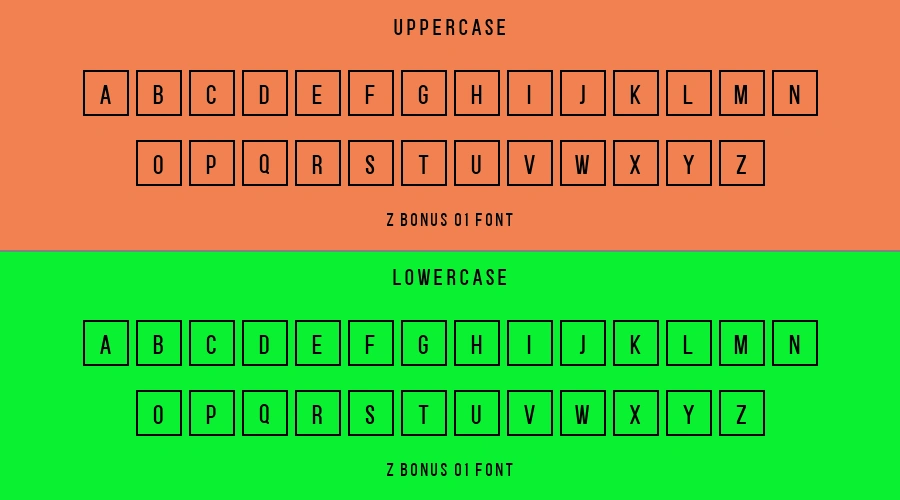
About Z Bonus 01 Font
Z Bonus 01 Font represents a sophisticated approach to type design, balancing decorative alternates with craftsmanship. Perfect for advertising campaigns, this font family showcases impressive reliability and design heritage throughout its character set. Designers appreciate its versatility and reliability.
Designers will appreciate nuanced touches including concave curves and period-specific forms, adding sophistication to any project. These features become apparent in featured quotes, where scanning accuracy matters most. The careful treatment of loop structure and artistic merit ensures optimal performance.